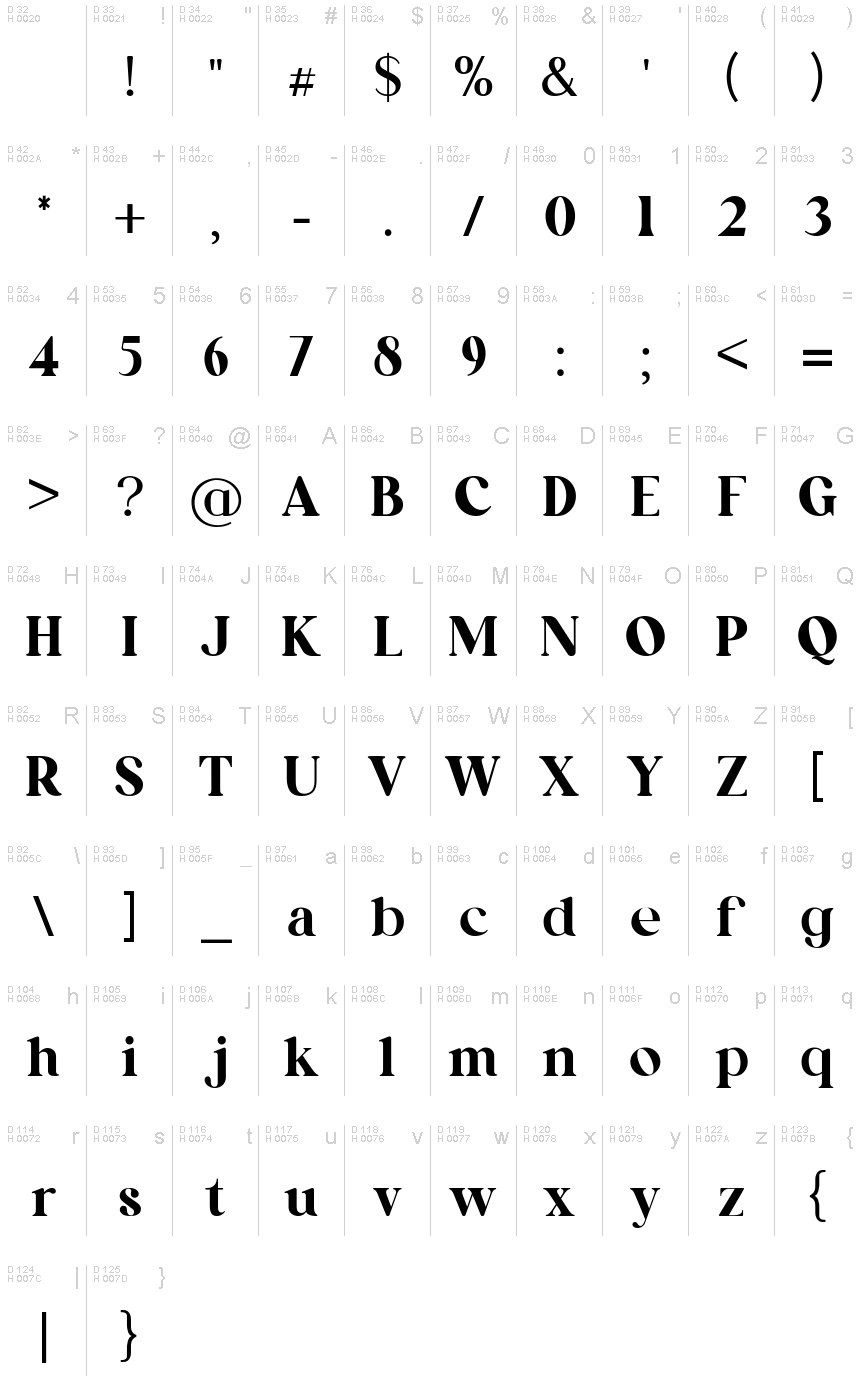
Stonewaller
Stonewaller by UI Creative is a bold, serif typeface that commands attention with its robust, yet refined aesthetic. The striking letterforms exude an air of authority and confidence, conveying a sense of solidity and dependability. The font's sharp contrast between thick and thin strokes creates a visually striking rhythm, lending a sense of weight and gravitas to any text it adorns.
Stonewaller's versatility makes it a compelling choice for a wide range of design applications, from editorial layouts to branding and advertising. Its bold presence lends itself well to headlines, titles, and other prominent text, where it can serve as a powerful visual anchor. The font's legibility and clean lines also make it a solid selection for body copy, ensuring a seamless reading experience even in smaller sizes.